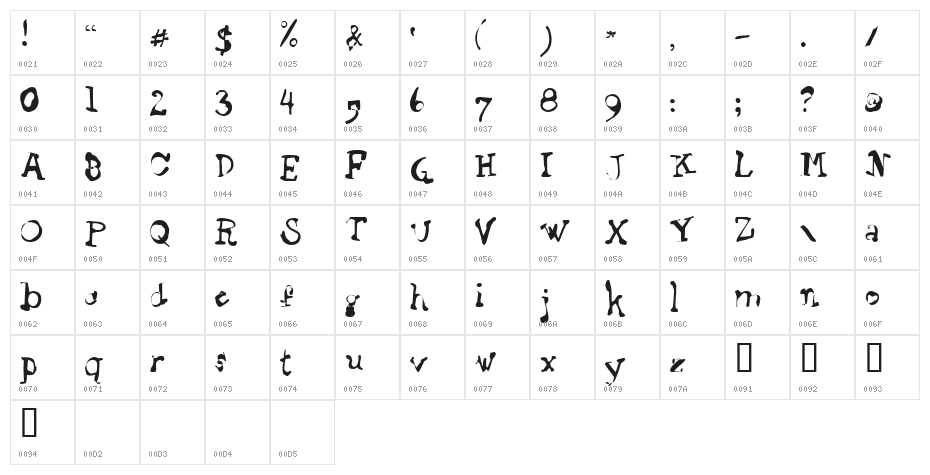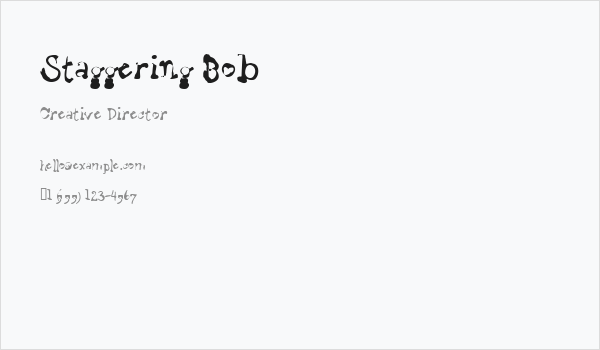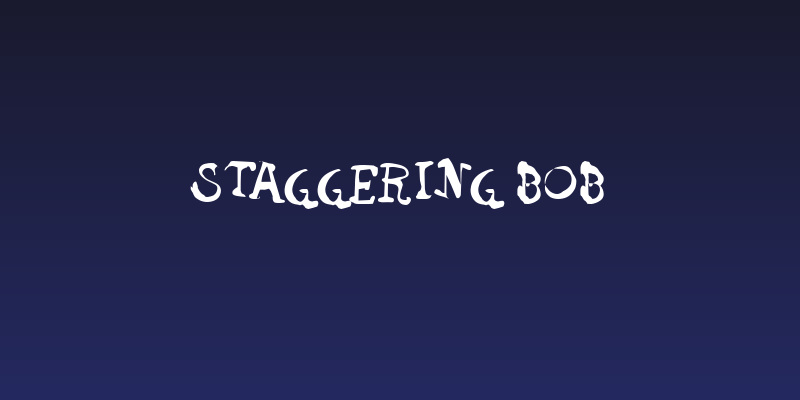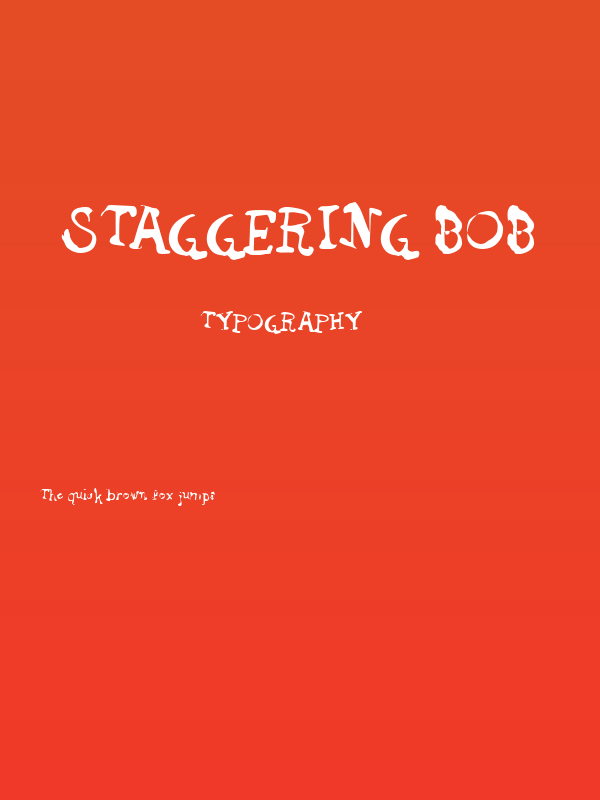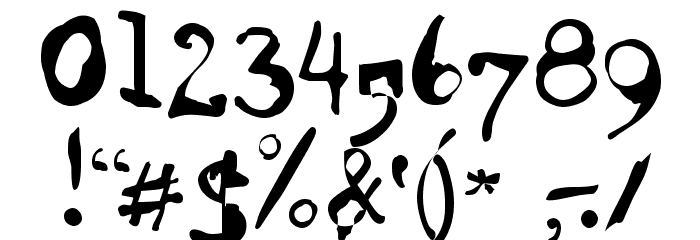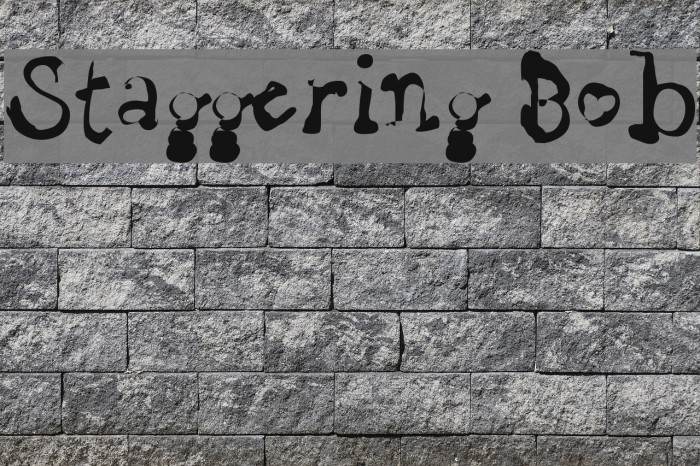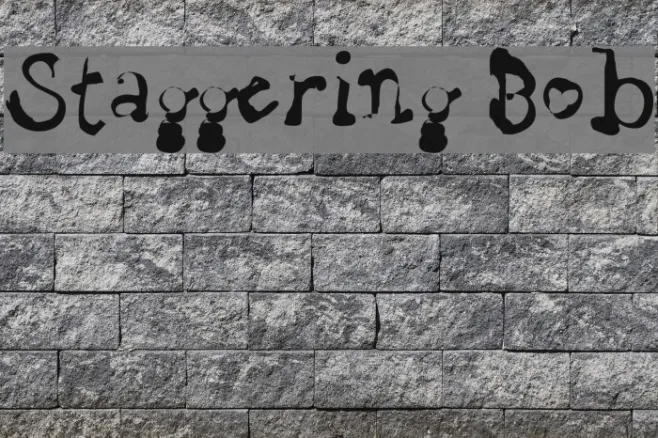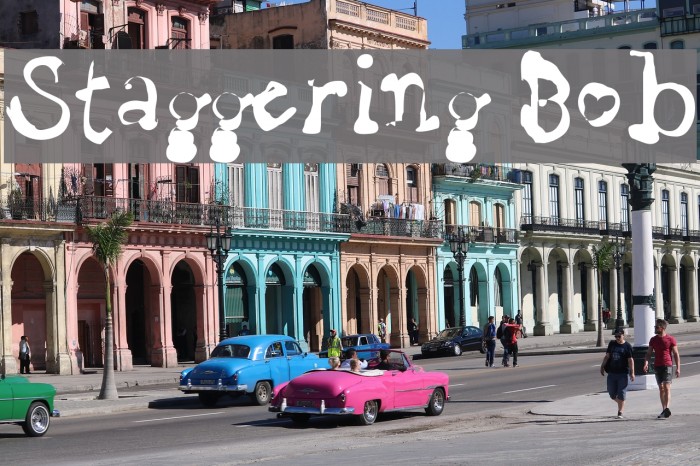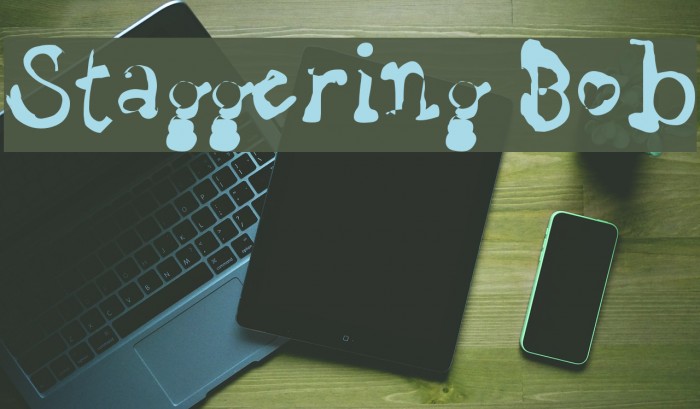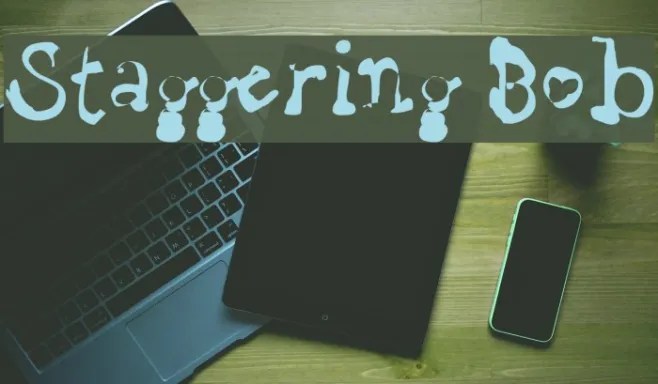
Staggering Bob Font
Staggering Bob Description
This font exhibits a playful and irregular style, characterized by its uneven strokes and quirky, hand-drawn appearance. The letters have a whimsical, almost cartoonish quality, with varying thicknesses and unexpected curves that give it a lively and dynamic feel. The uppercase and lowercase letters maintain a consistent style, with exaggerated serifs and a slightly distorted form that adds to its charm. Numbers and special characters follow the same playful design, making the font suitable for creative and informal applications. Its unique style captures attention and conveys a sense of fun and spontaneity.
| Proposed Projects | Ideal for children's books, playful branding, creative posters, and informal invitations. |